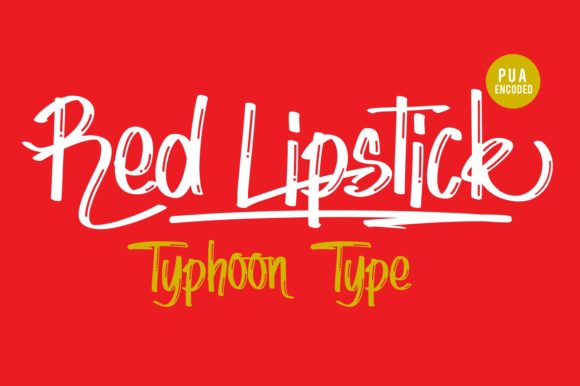
HomeScript FontsRed Lipstick Font Script Fonts Red Lipstick Font FacebookXPinterestWhatsApp Red Lipstick Font Poster 2 About Red Lipstick Font Red Lipstick is a fun and bold handwritten font with a rough edge. Get inspired by its powerful vibe. DOWNLOAD ON CREATIVE FABRICAThis font is sold and delivered by Creative Fabrica. Font Canyon may earn a commission if you buy through this link. People also explored Slim Body Font Butterfly Lover Monogram Font Fresh Olive Font Valentine Font House Milk Font Bunda Font Tubby Bears Font Seight Font Bowling Font 333 0 TagsRed Lipstick Font Previous articleNavy Ballad FontNext articleSuper Marion Duo Font LEAVE A REPLY Cancel reply Comment: Please enter your comment! Name:* Please enter your name here Email:* You have entered an incorrect email address! Please enter your email address here Website: Save my name, email, and website in this browser for the next time I comment. Personal Use Free Travelling Free Brush Personal Use Free Read more about this font Autines Personal Use Free Read more about this font Cintya Personal Use Free Read more about this font Sweet Cake Personal Use Free Read more about this font BLOG Modern Sans-Serif Fonts That Brands Love in 2025 In 2025, modern sans-serif fonts remain a top choice for brands looking to project clarity, professionalism, and... Fonts That Capture the Spirit of New York City Free vs Paid Fonts: Why Investing in Premium Fonts Is Worth It How to Cut Any Font on Cricut: Convert a Font to SVG (Free)